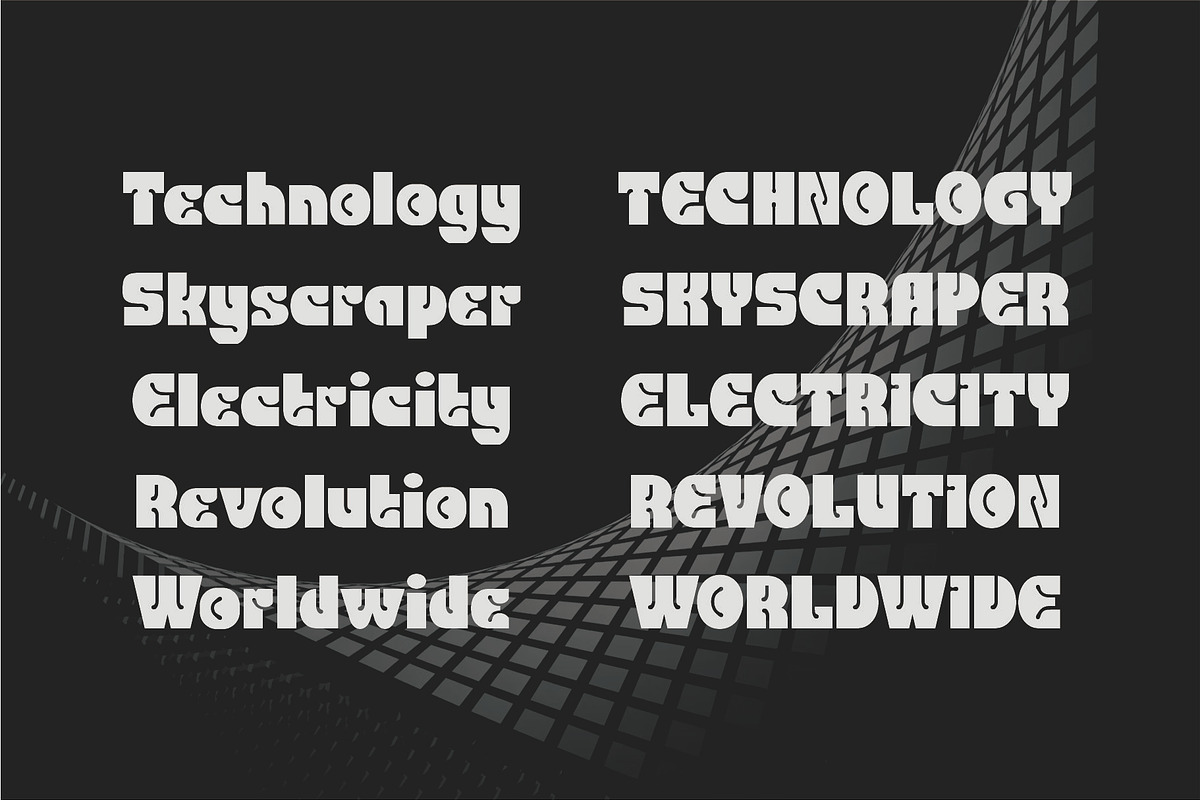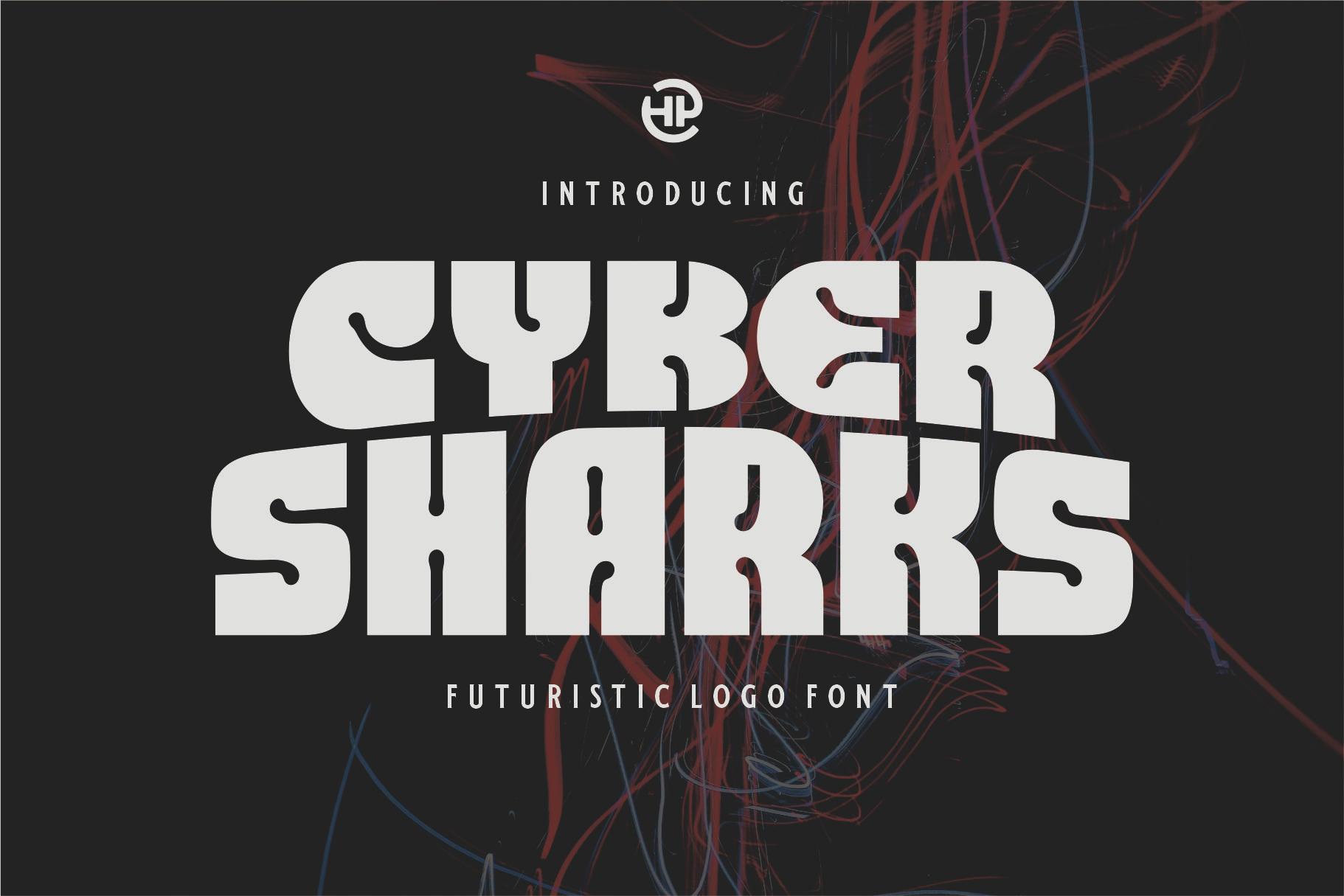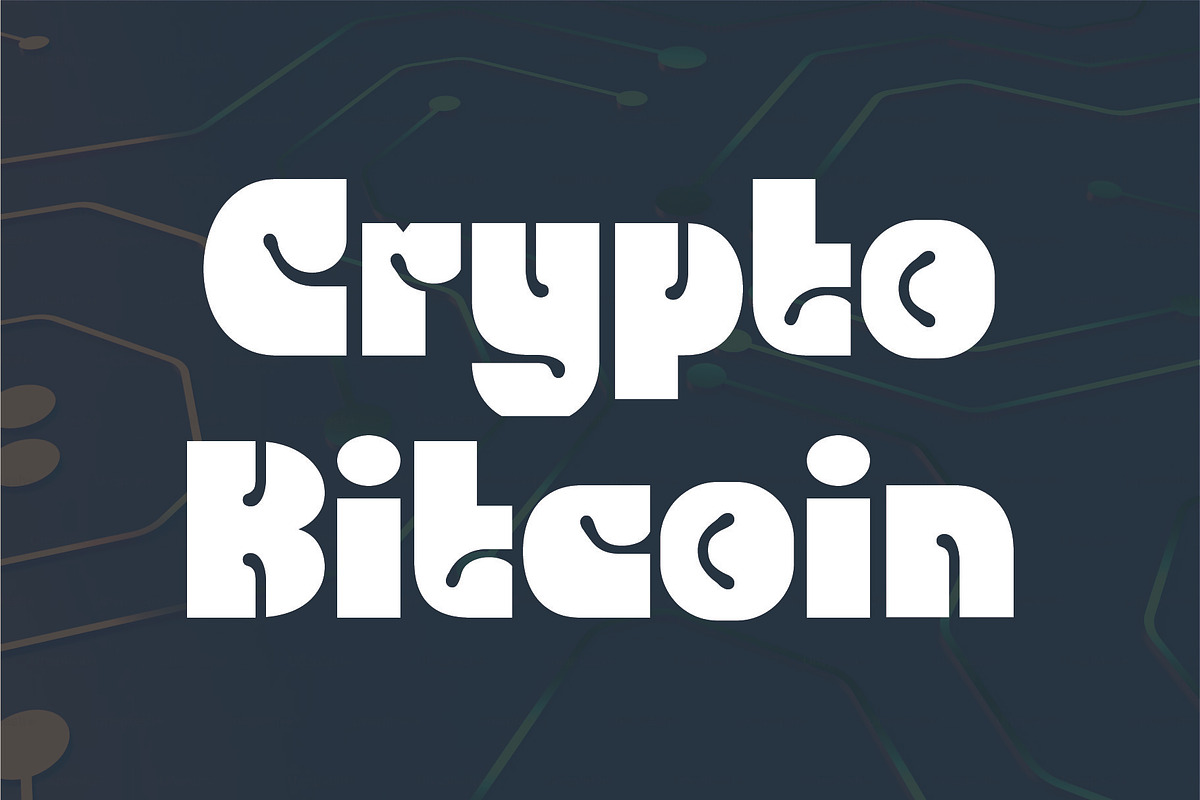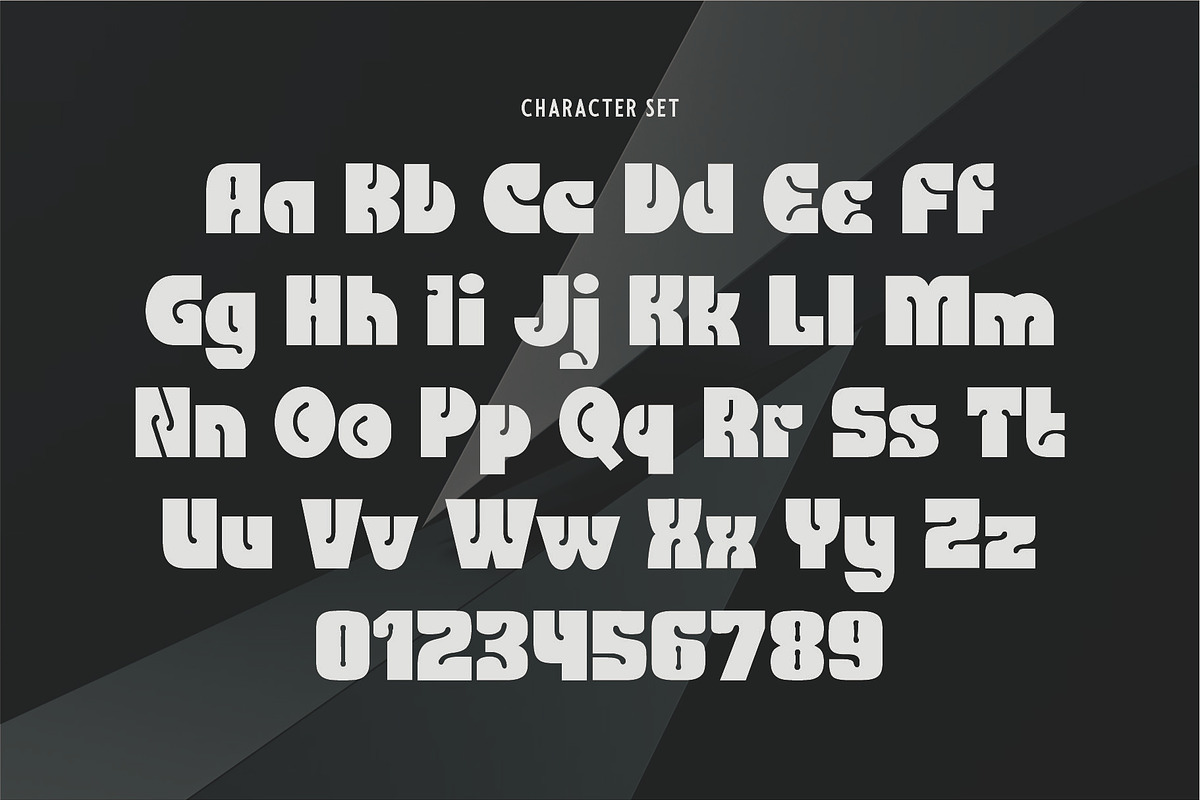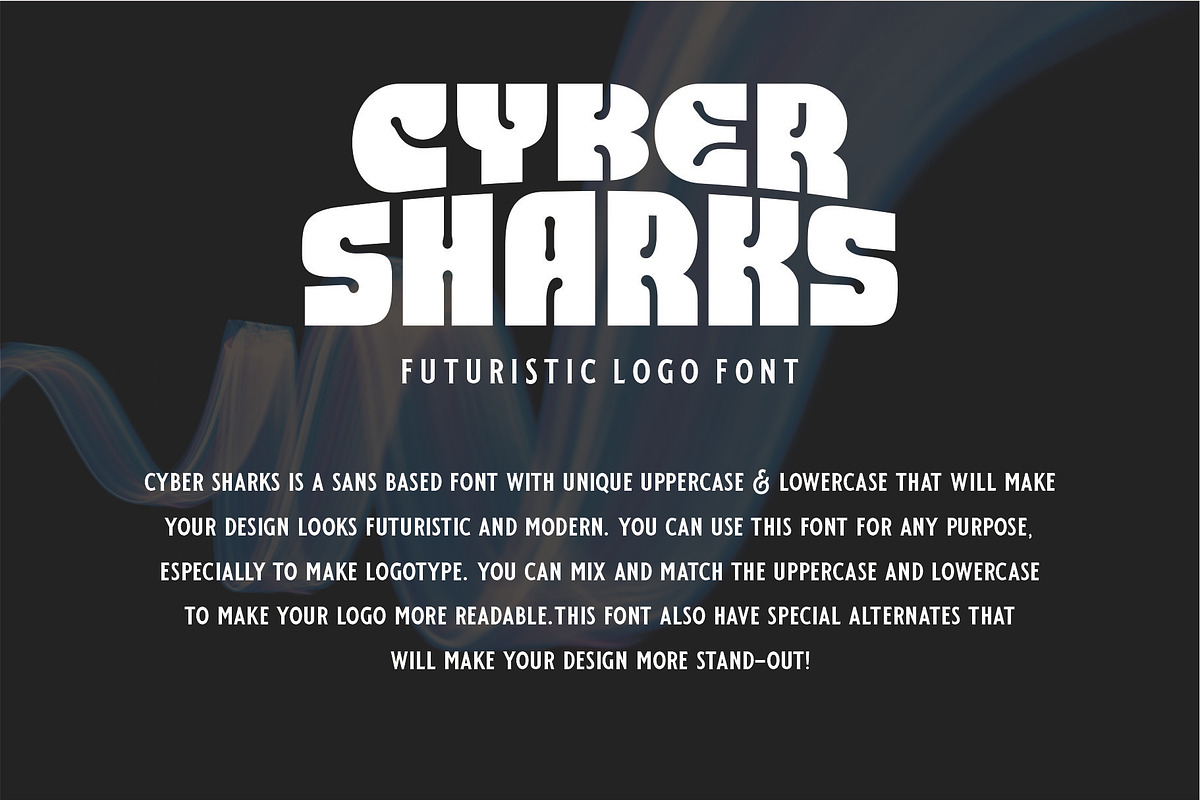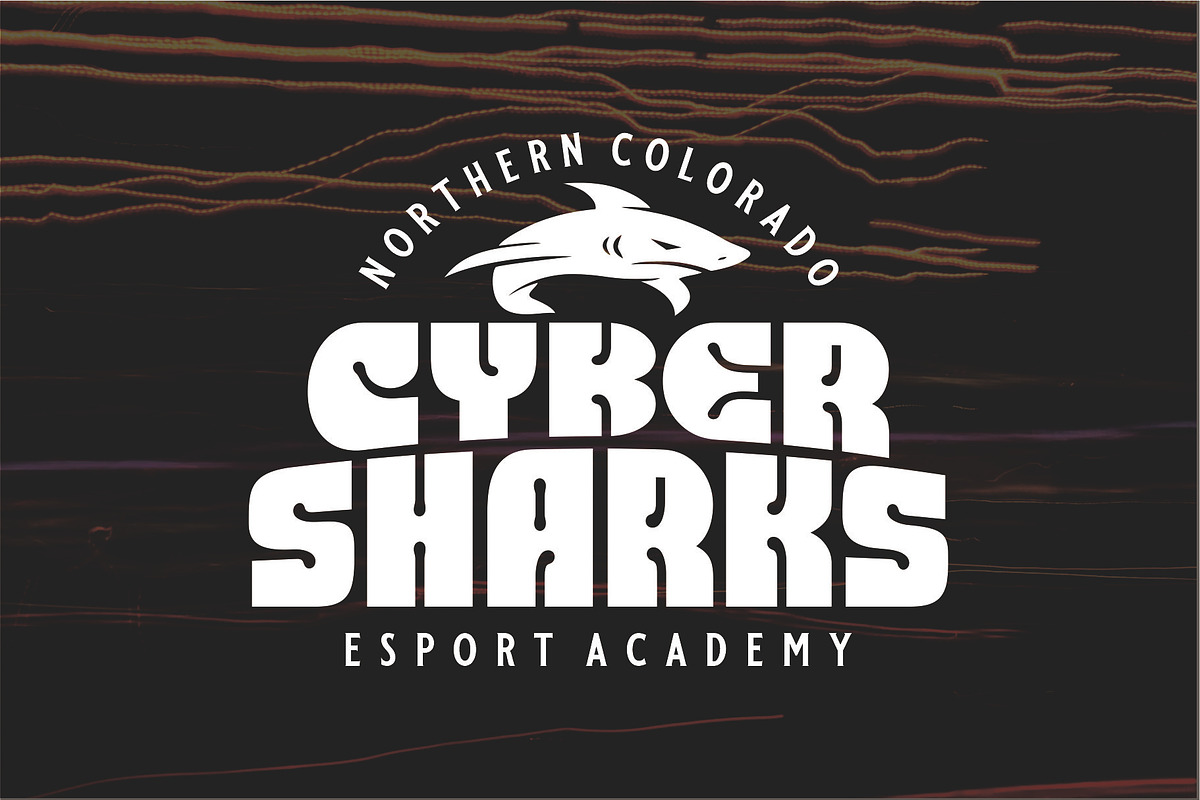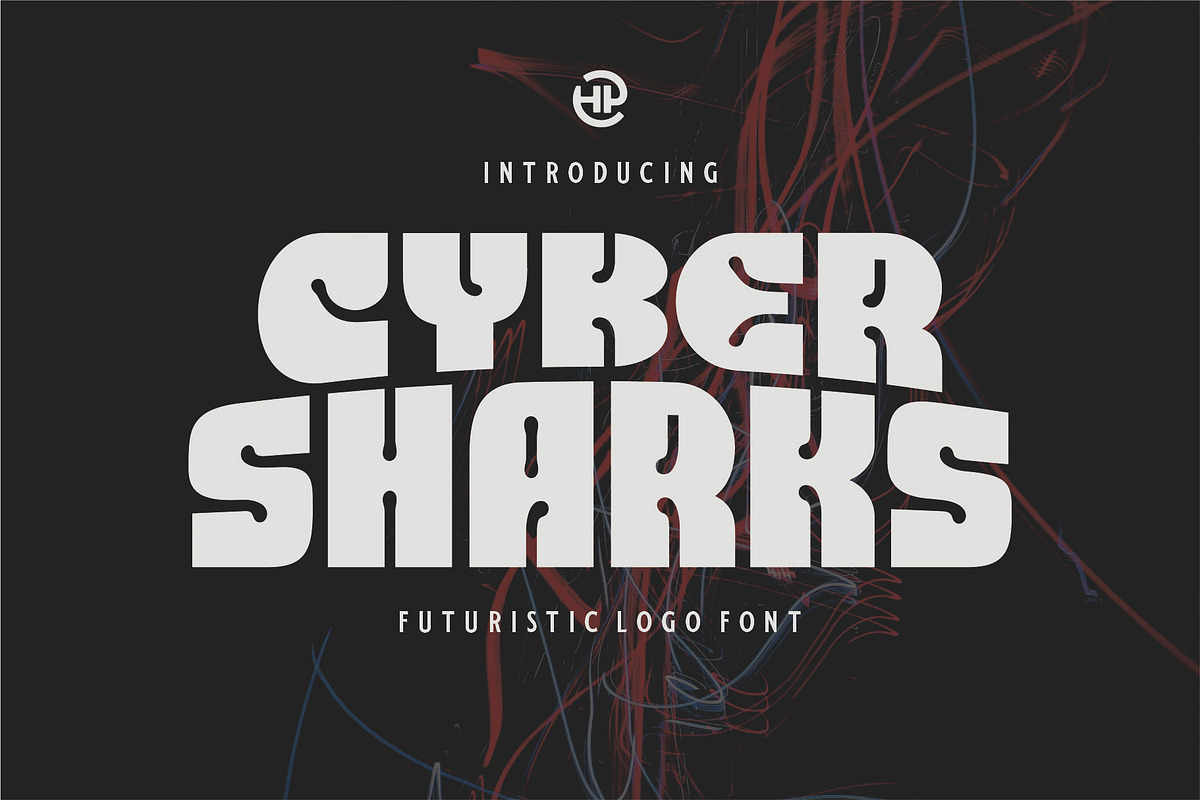
CYBER SHARKS - Futuristic Typeface
Cyber Sharks is a sans based font with unique uppercase & lowercase that will make your design looks futuristic and modern. you can use this font for any purpose, especially to make logotype. you can mix and match the uppercase and lowercase to make your logo more readable.this font also have special alternates that will make your design more stand-out!